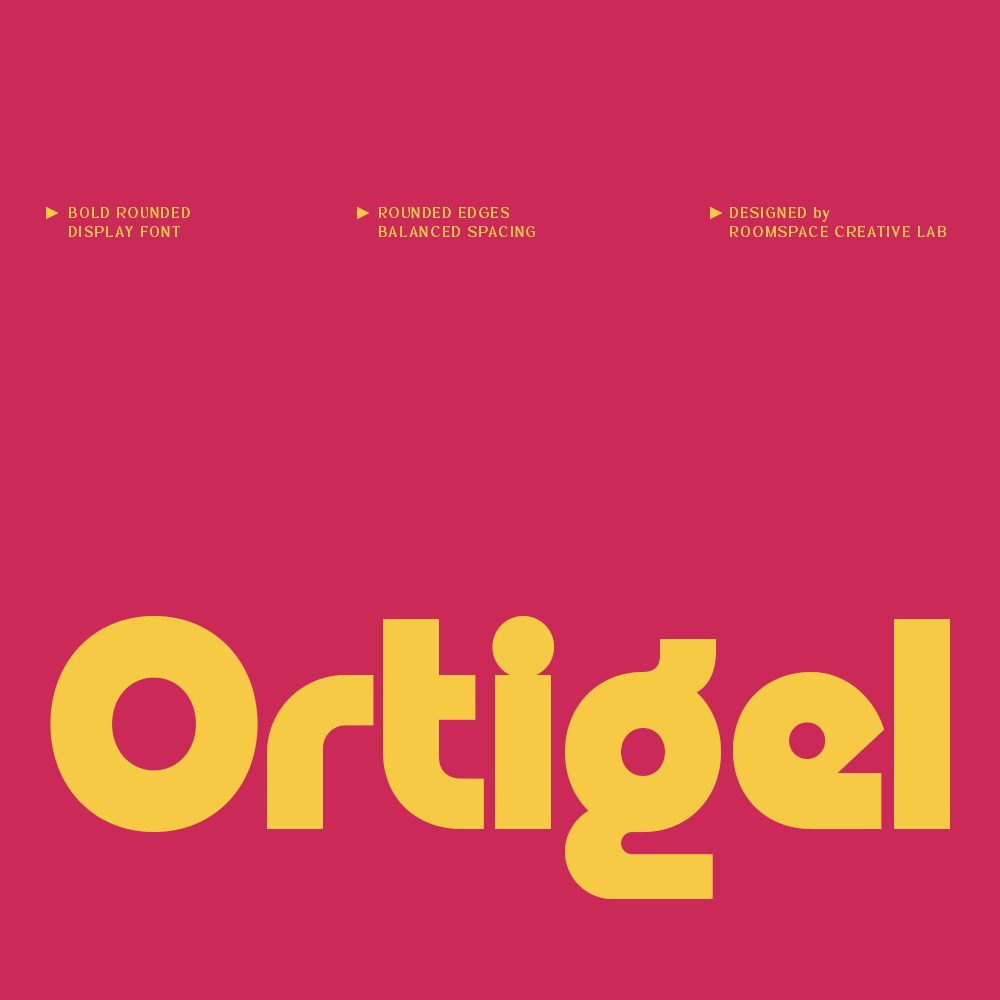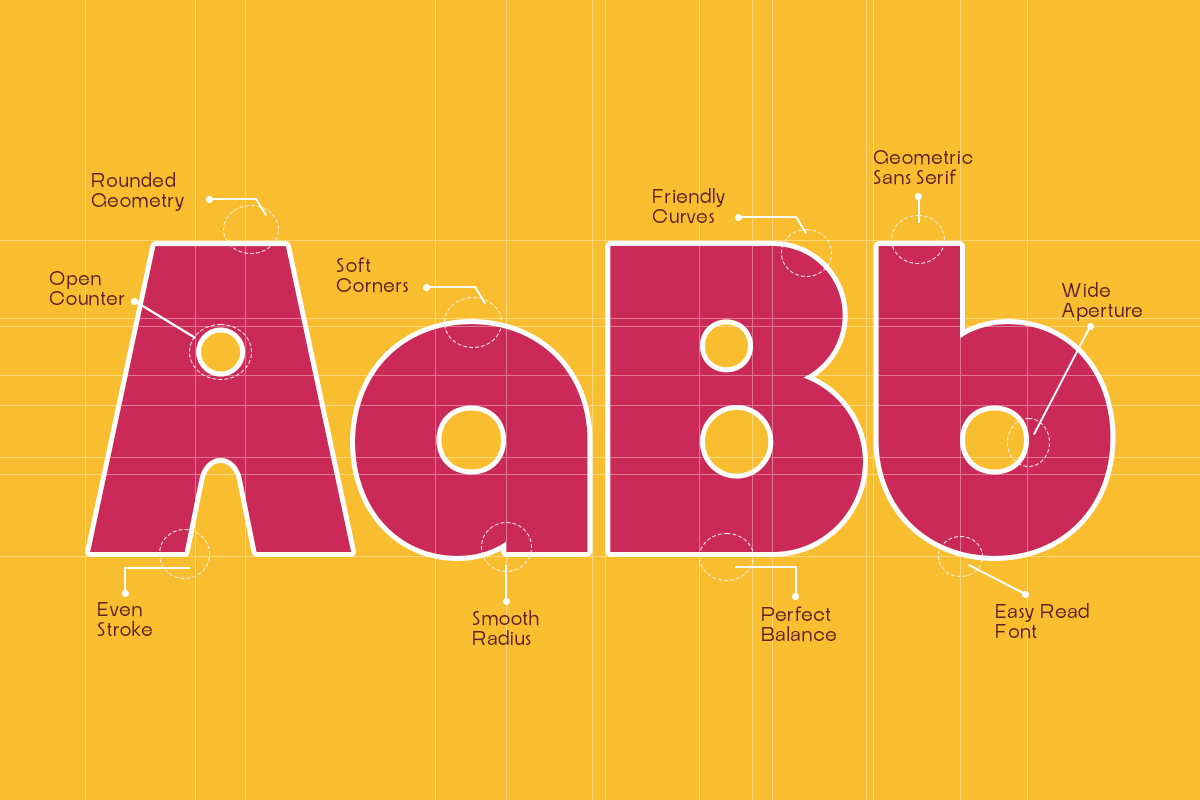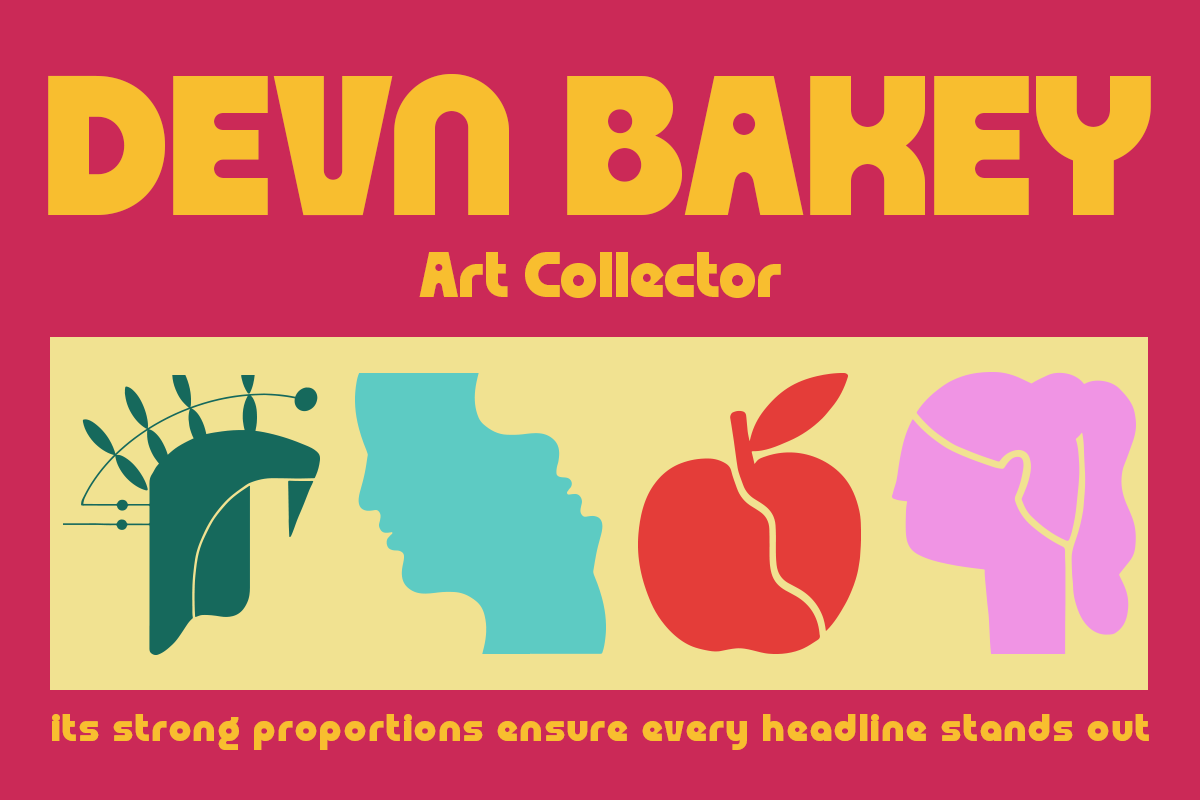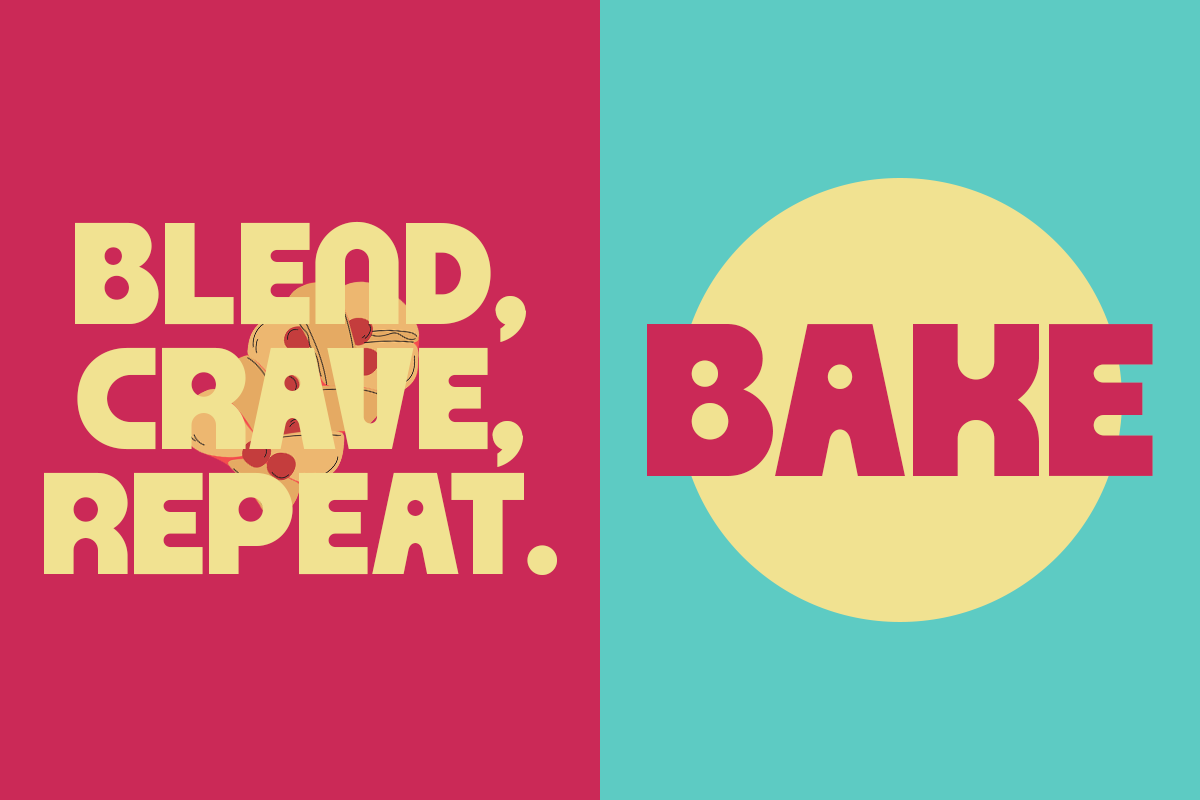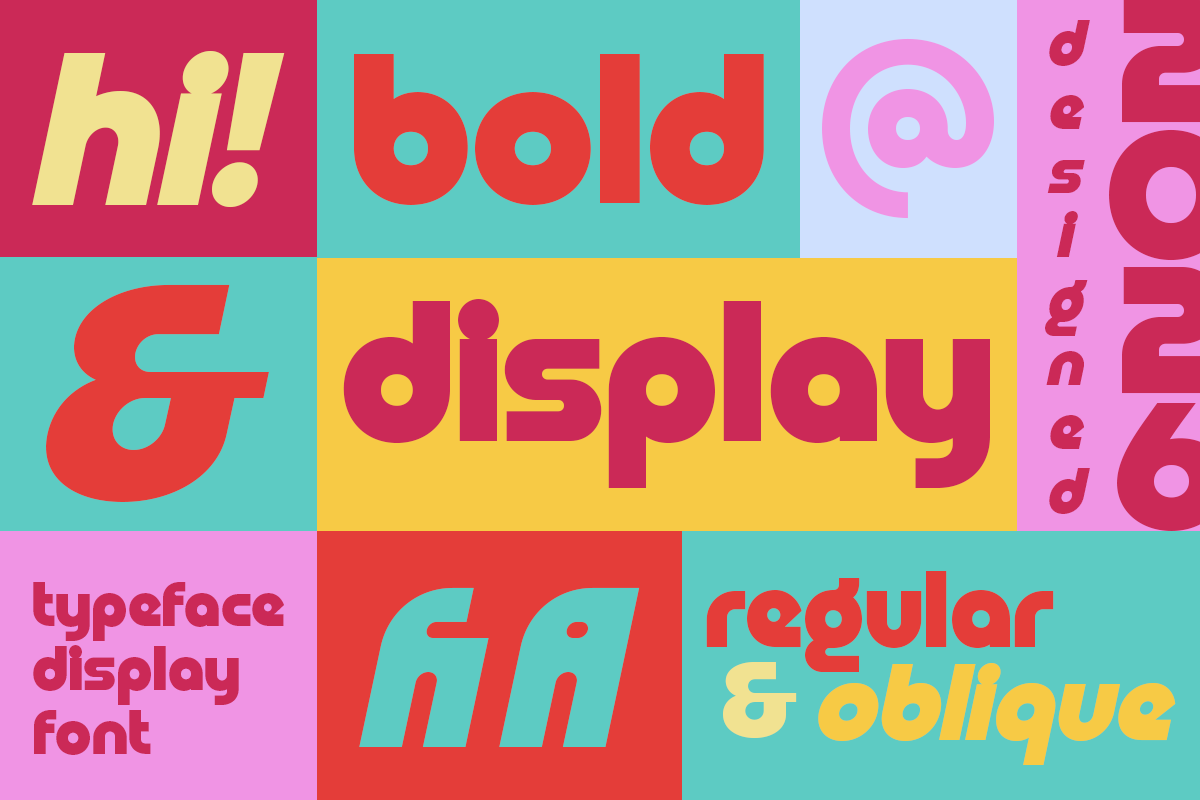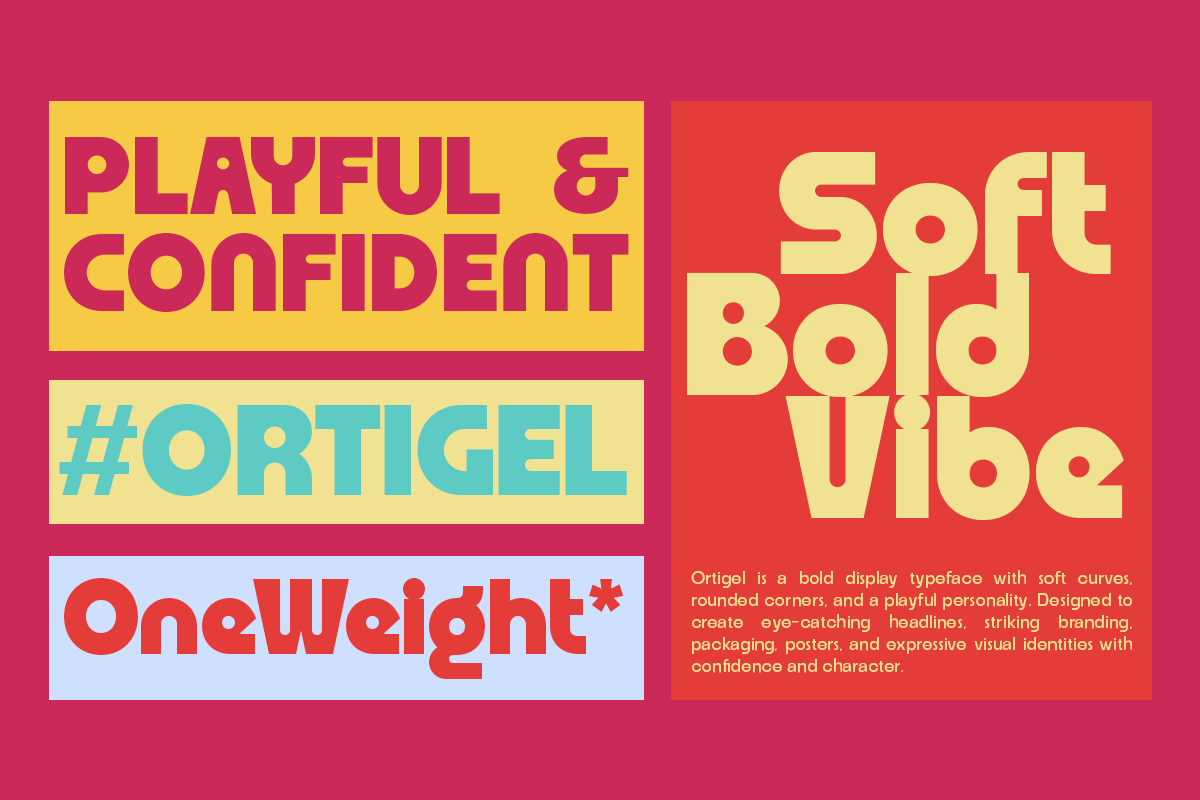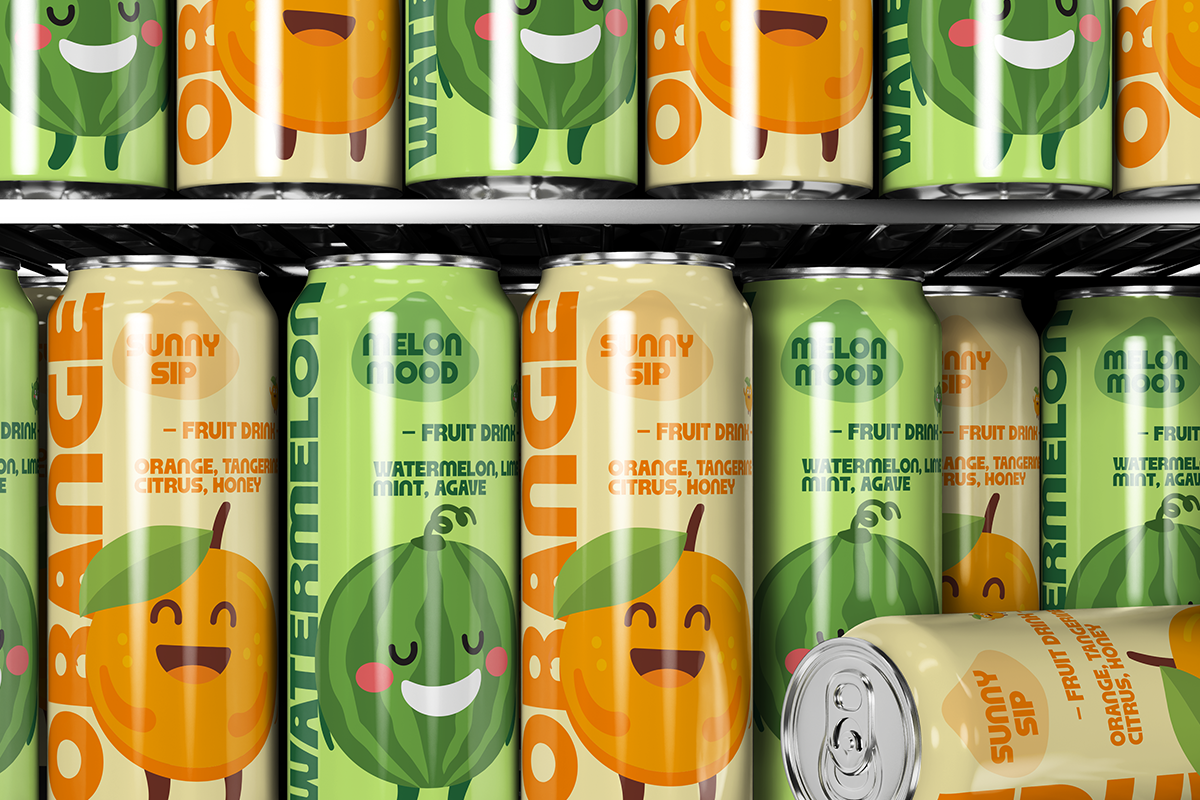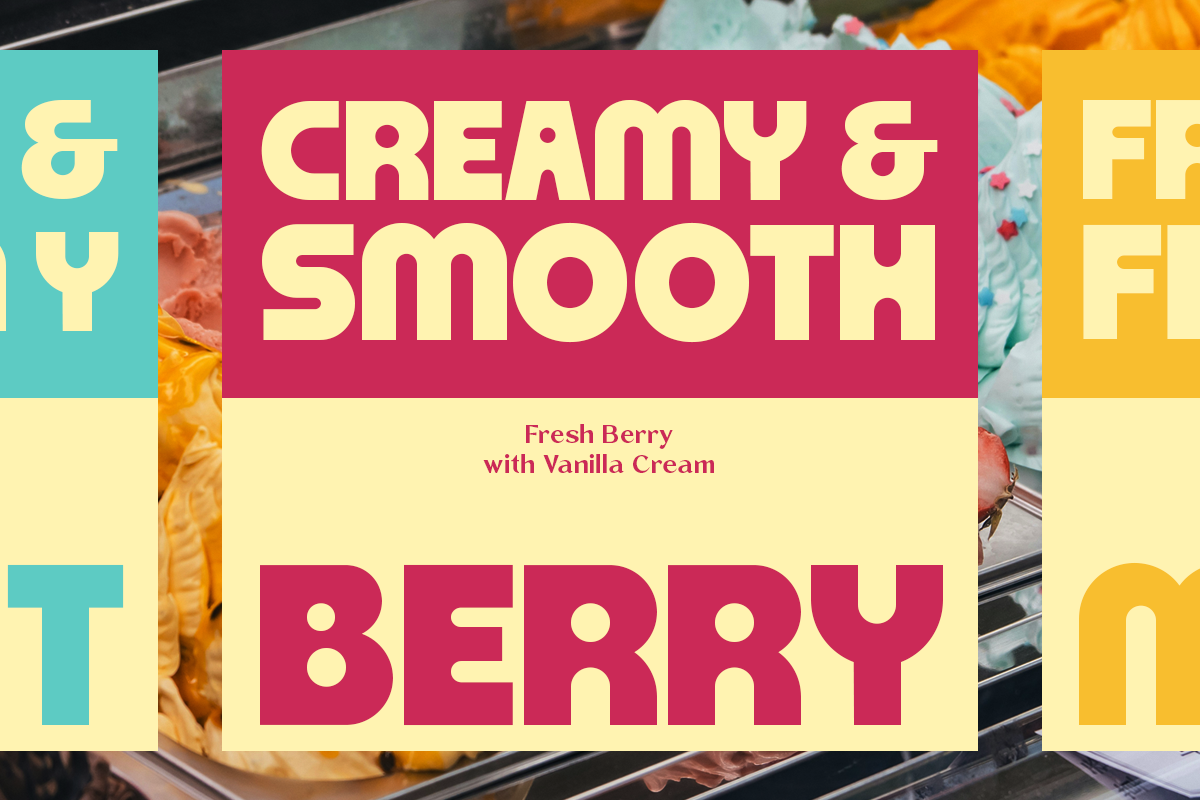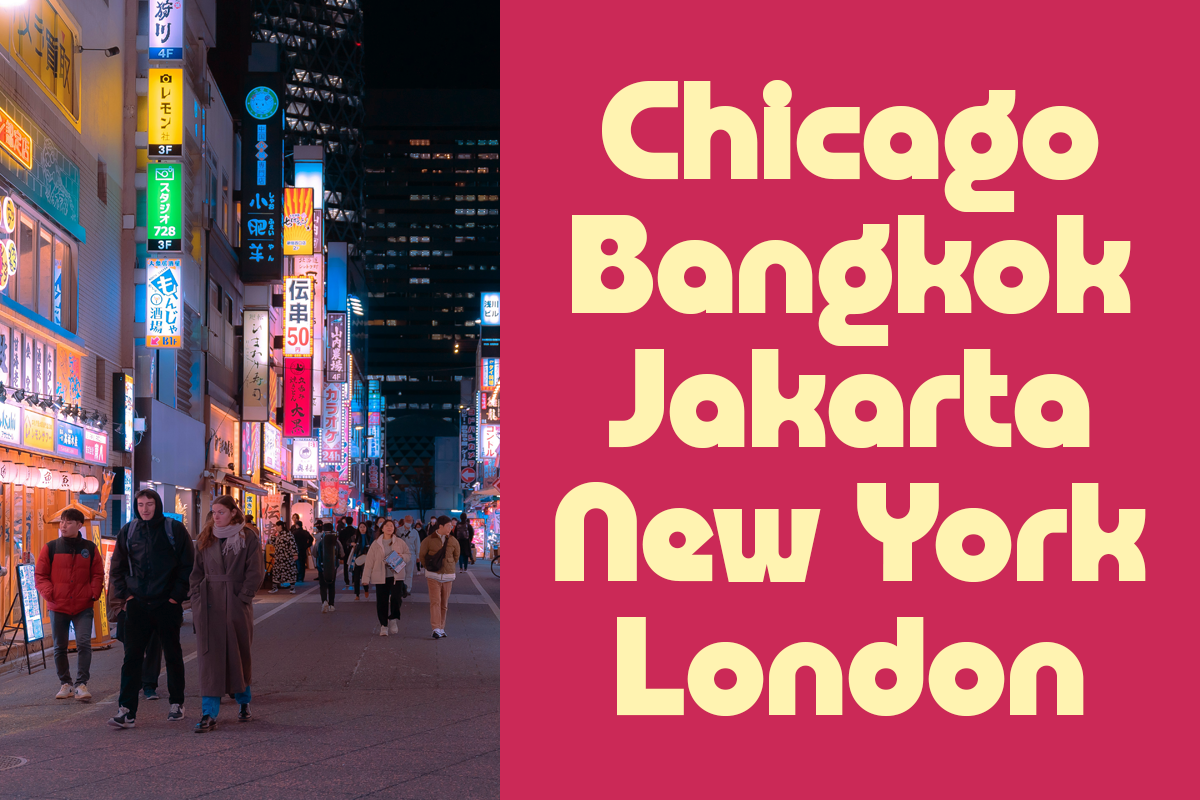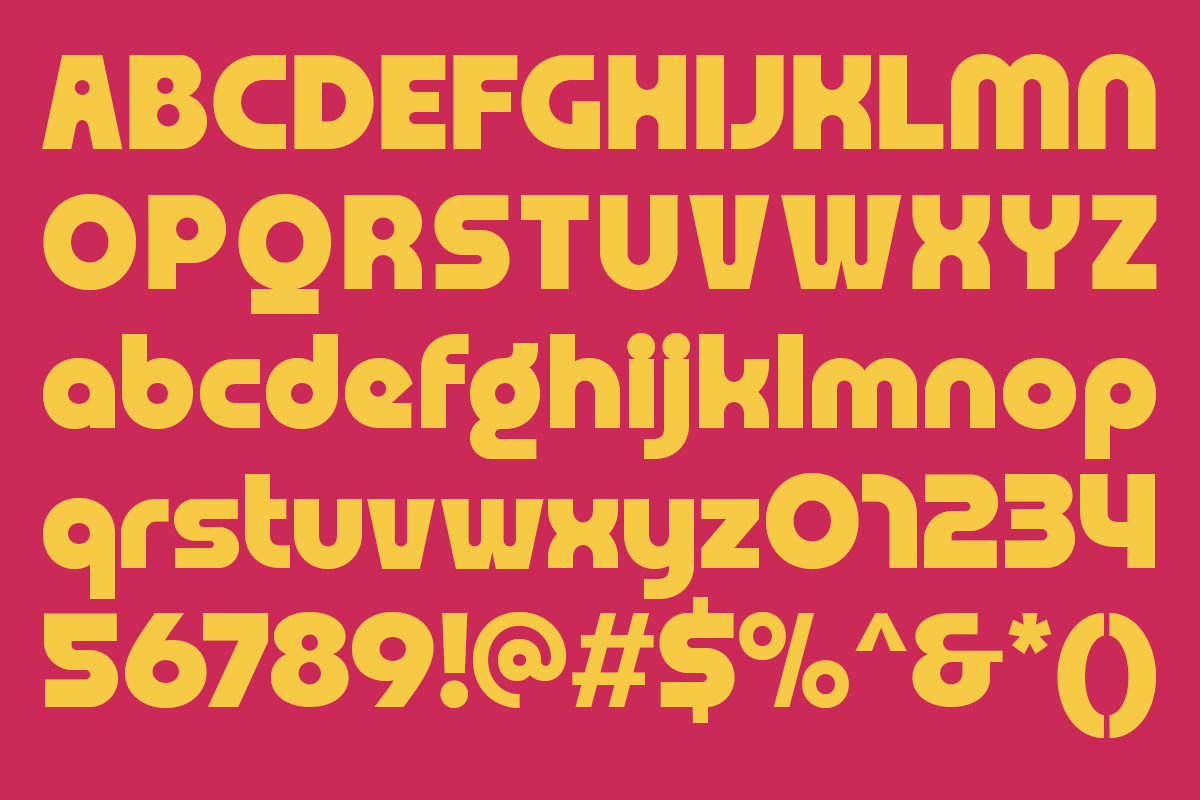
Ortigel - Rounded Display Font
Introducing Ortigel, a bold rounded display typeface designed with soft curves, smooth corners, and balanced proportions to create a friendly yet striking appearance. Its geometric letterforms and wide apertures provide excellent readability while maintaining a playful personality, making it perfect for branding, logos, packaging, posters, headlines, editorial designs, social media graphics, and other creative projects that demand strong visual impact.
Ortigel combines bold shapes with rounded details to deliver a warm, modern, and expressive look. It also comes with complete multilingual support, making it suitable for a wide variety of languages and international design projects.
Ortigel is a bold rounded display font featuring geometric letterforms with soft curves and smooth corners, designed for excellent readability. It includes uppercase and lowercase letters, numerals, punctuation, ligatures, and complete multilingual support, and is available in OTF and TTF formats.